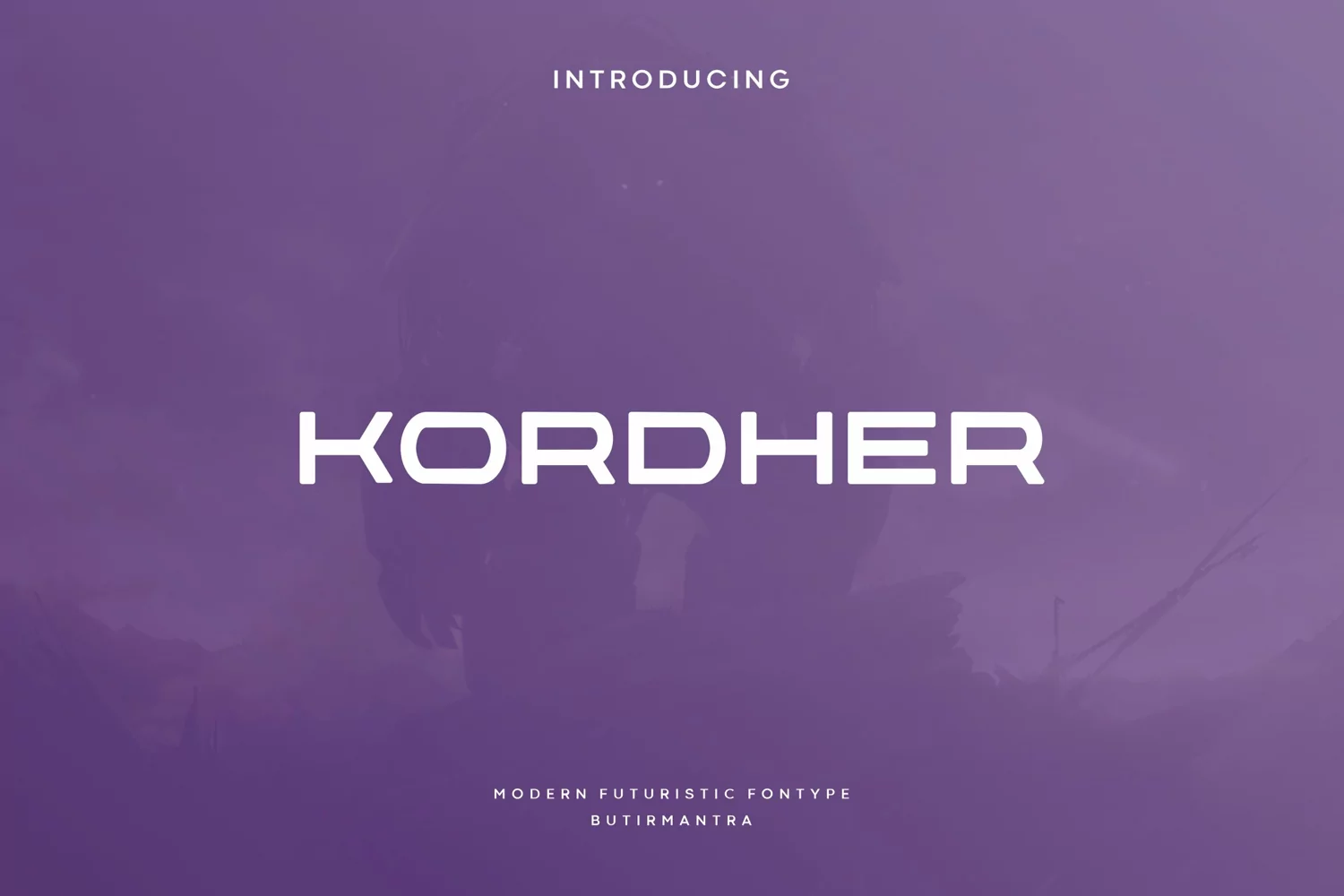
Kordher
Kordher is a modern, elegant and futuristic display font. This font would be ideal for writing web designs, business cards, or pretty much anything else that requires a unique touch.